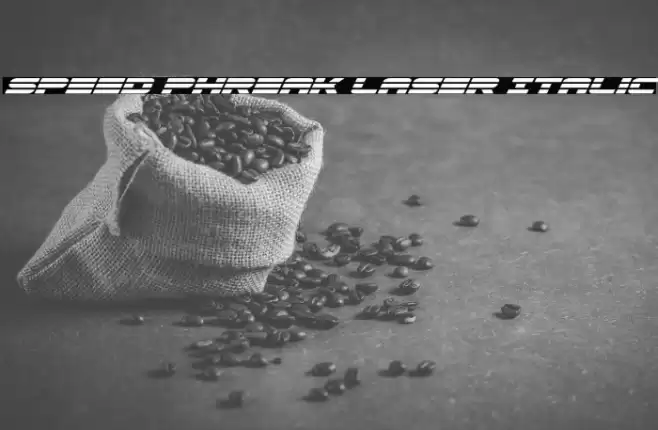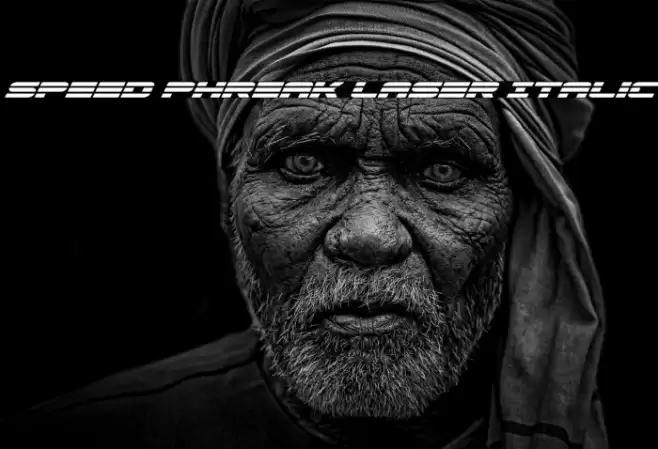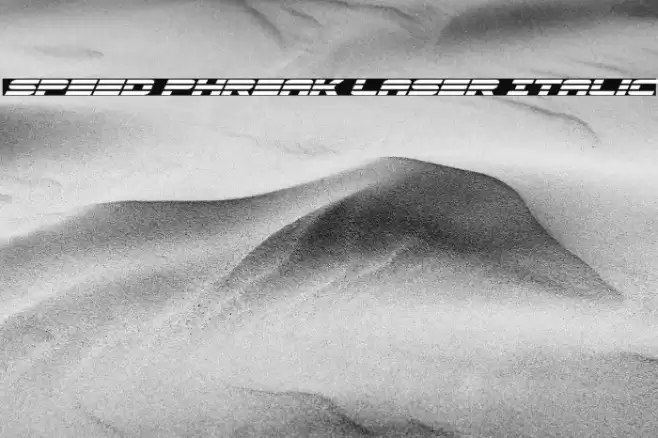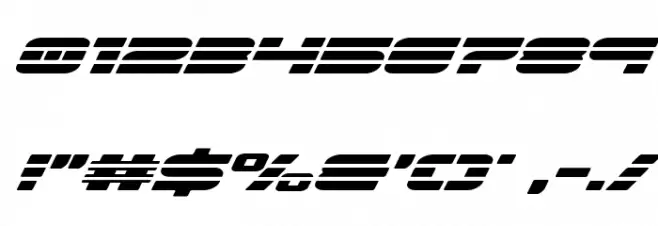
Speed Phreak Laser Italic Font
Speed Phreak Laser Italic Description
This font features a futuristic and dynamic design, characterized by its sharp, angular lines and italicized slant. The characters are constructed with a series of horizontal segments, giving them a segmented, high-tech appearance. The bold strokes and geometric shapes convey a sense of speed and movement, making it ideal for projects that require a modern and energetic aesthetic. The uppercase and lowercase letters maintain a consistent style, with numerals and special characters following the same design principles. This font is perfect for creating impactful headlines, logos, and branding materials that need to stand out with a sleek, cutting-edge look.
A futuristic, segmented italic font with bold, angular lines and a dynamic style from Uncategorized fonts.
- Proposed Projects: Ideal for technology branding, sports team logos, sci-fi book covers, and dynamic poster designs.